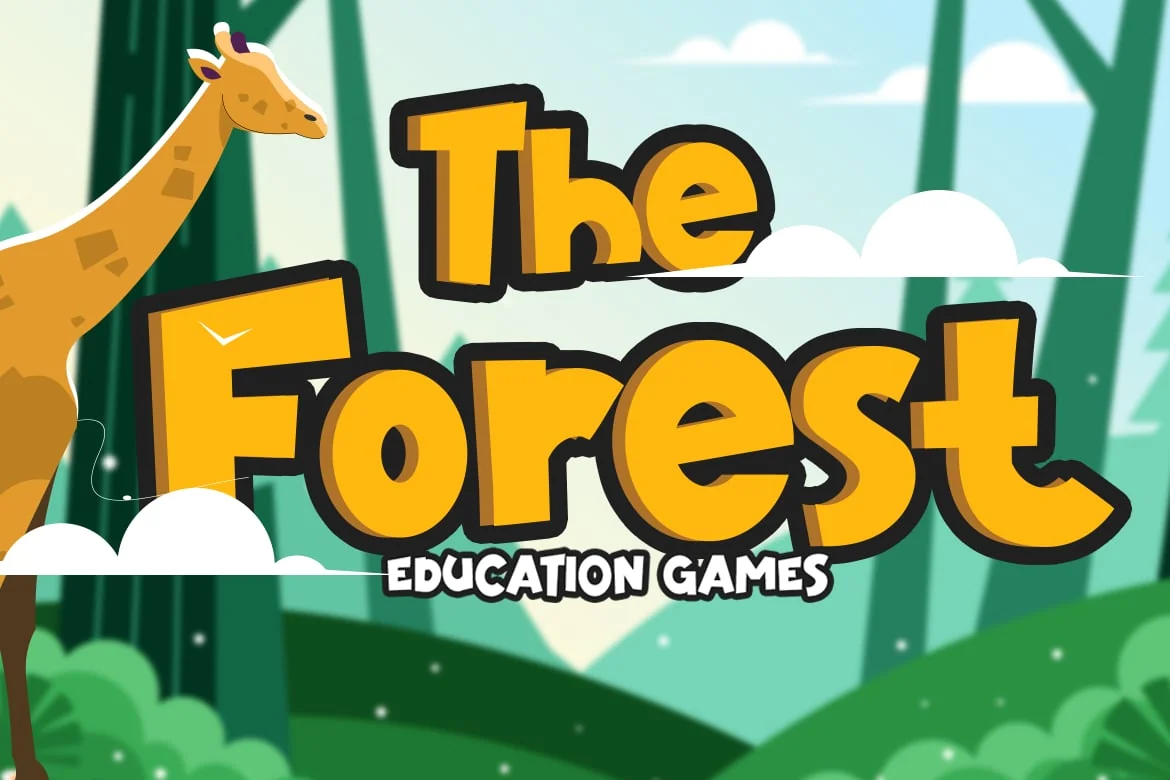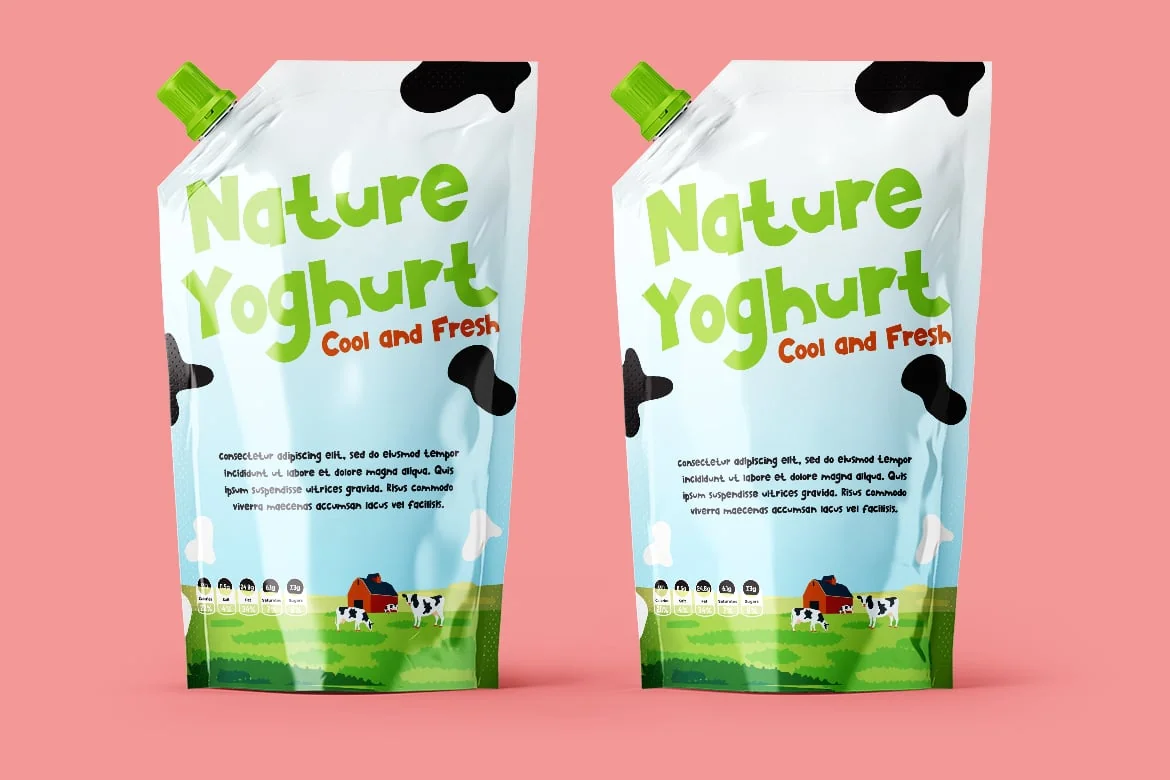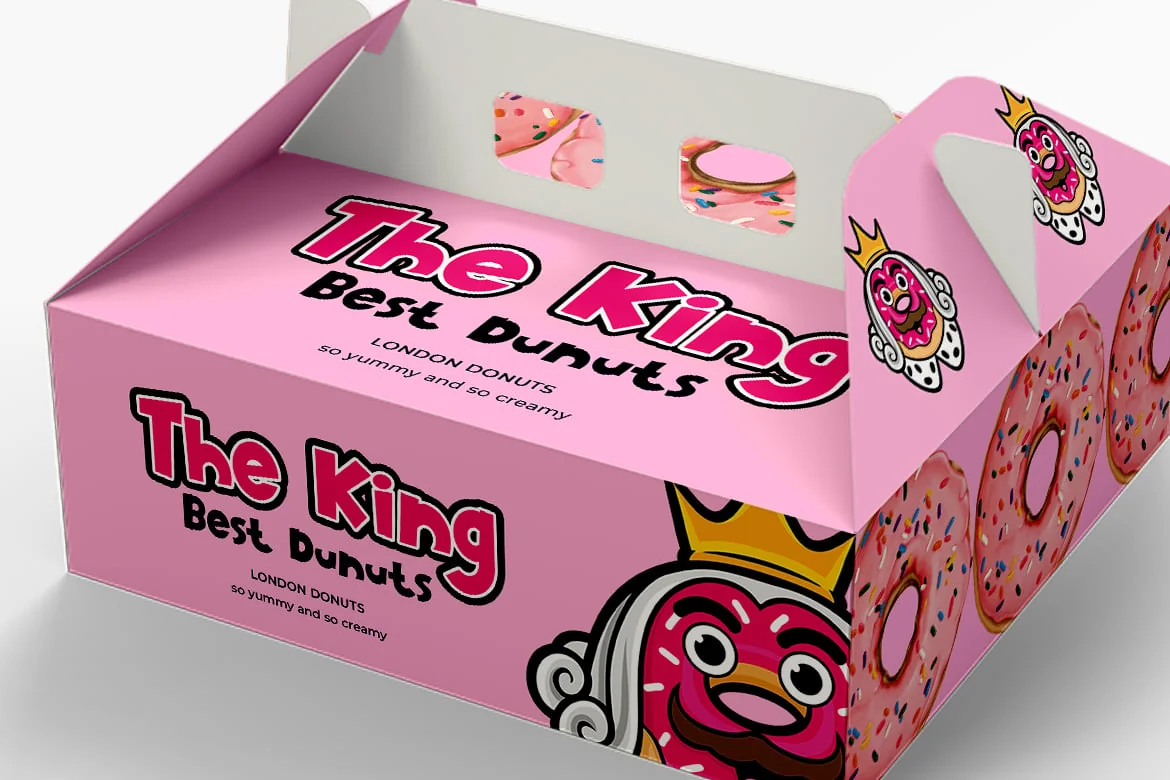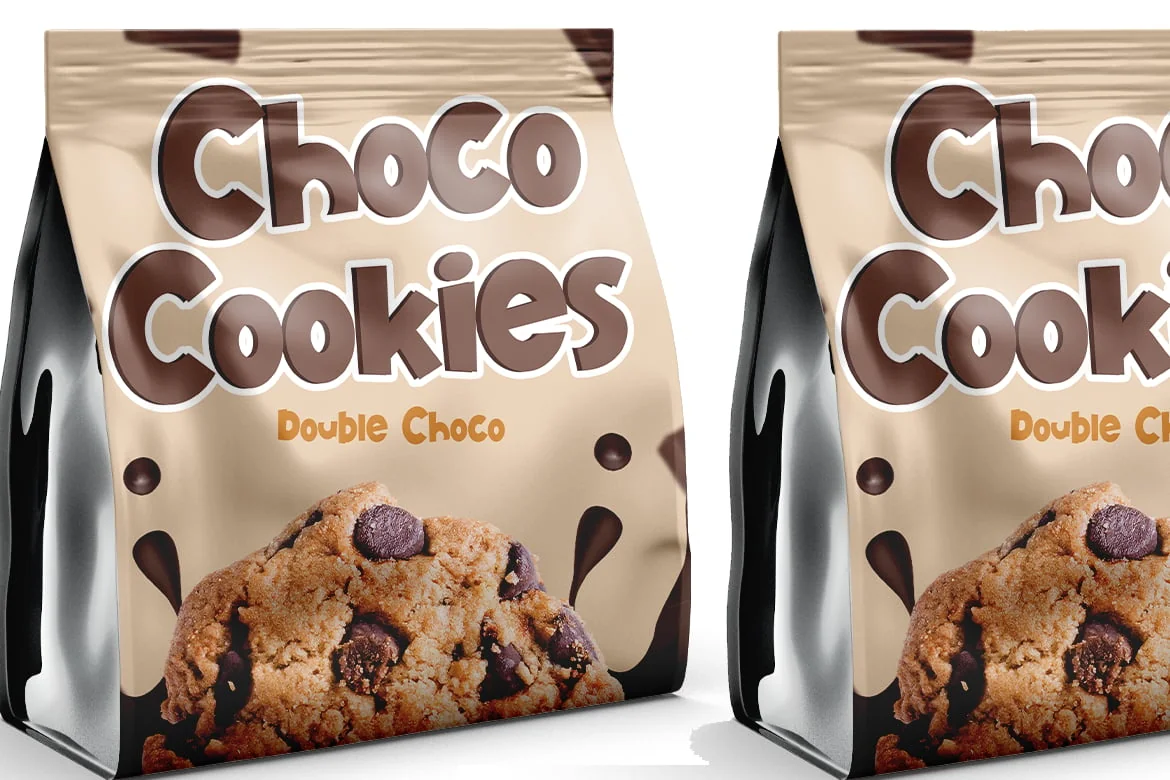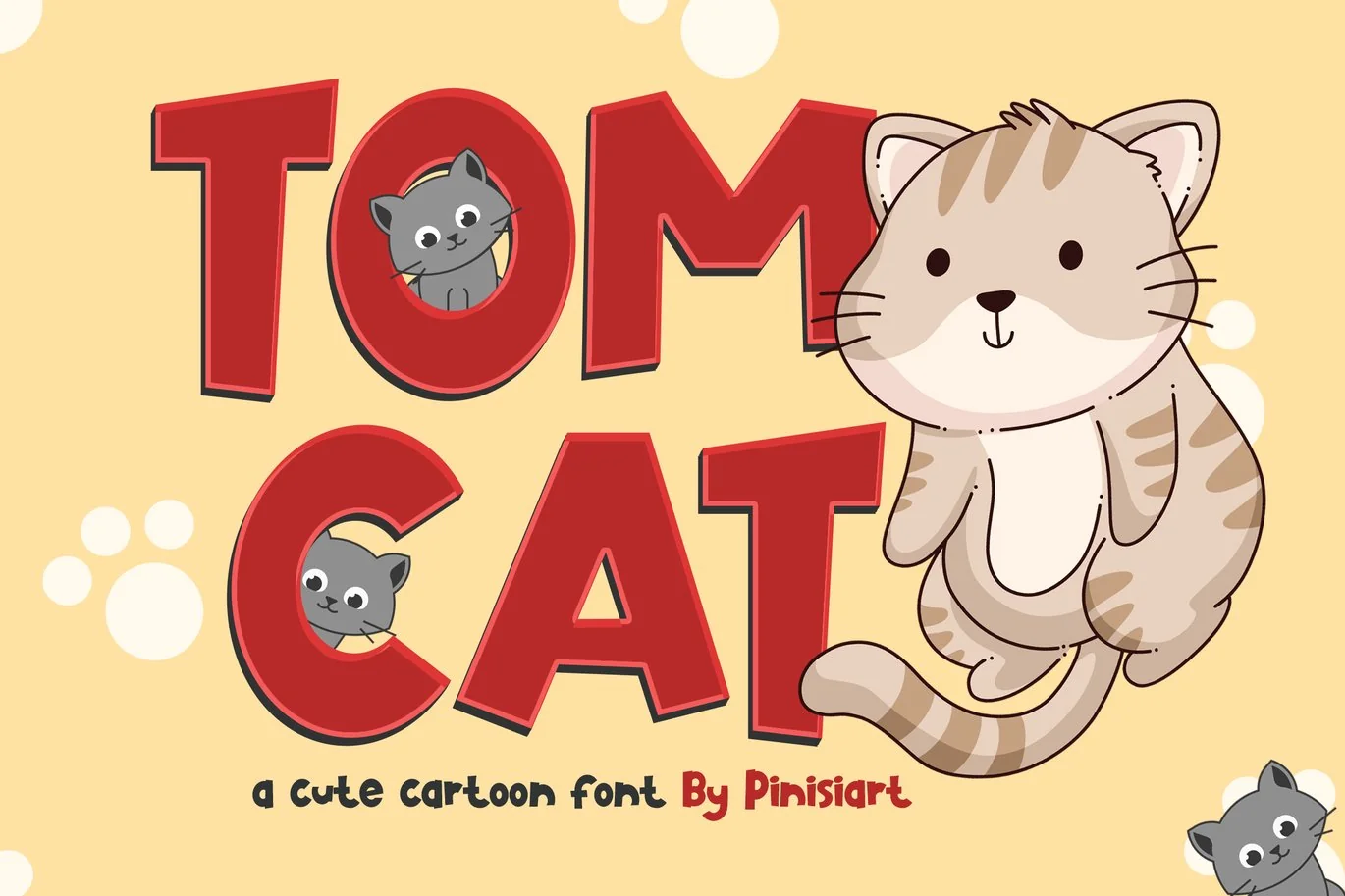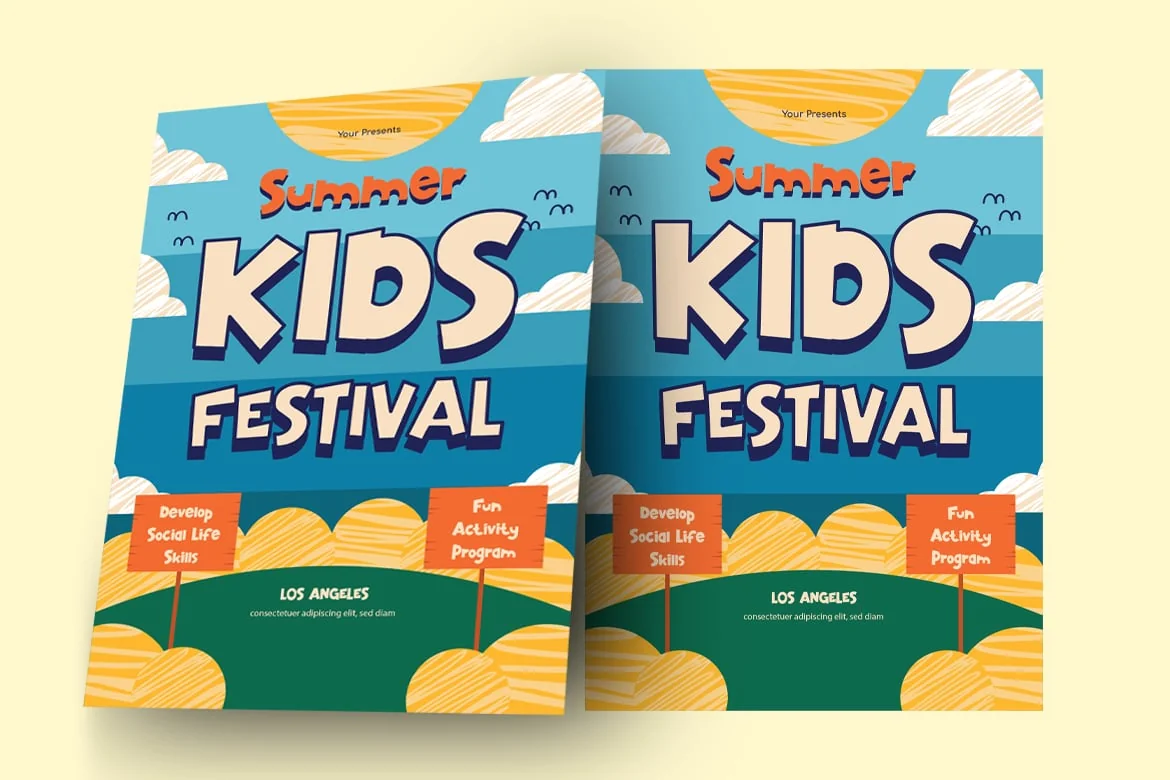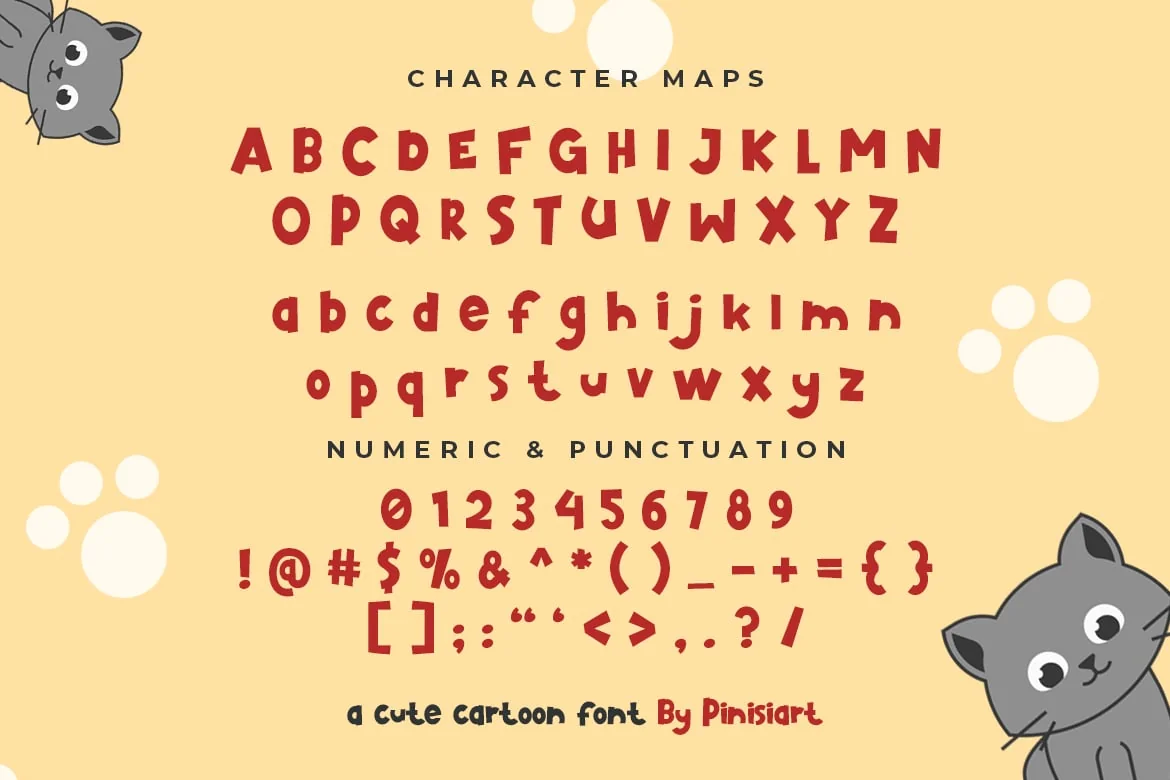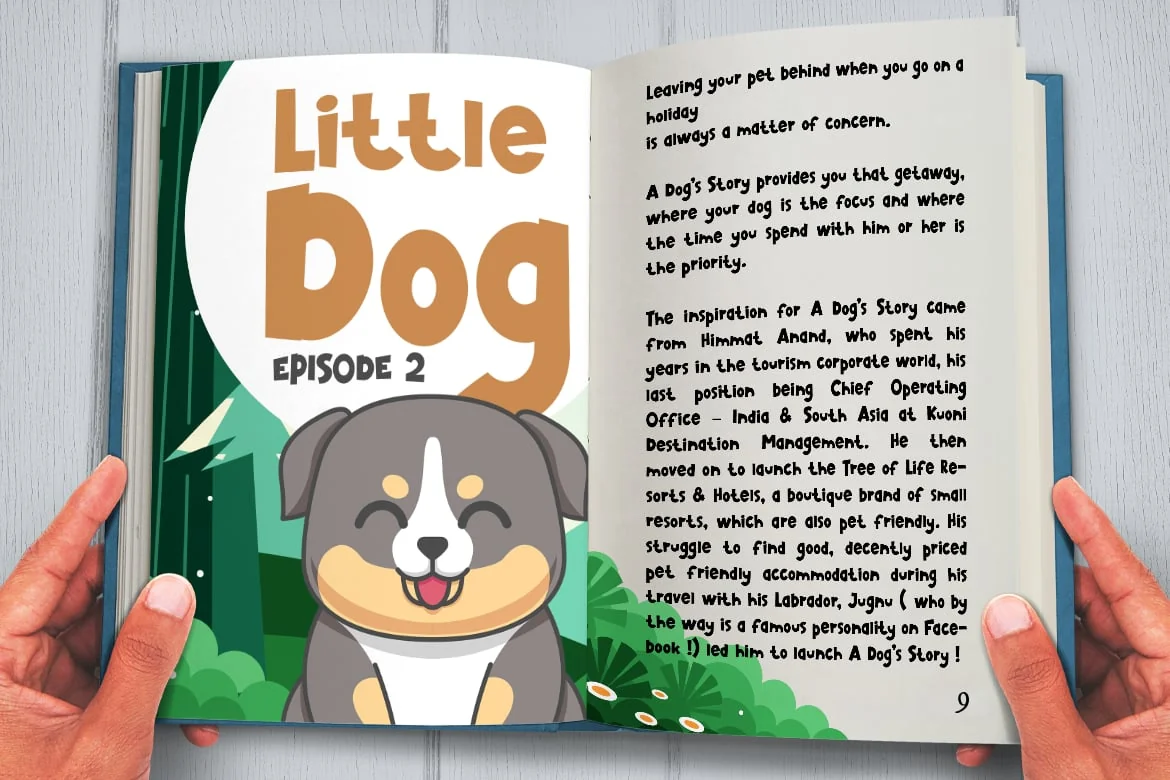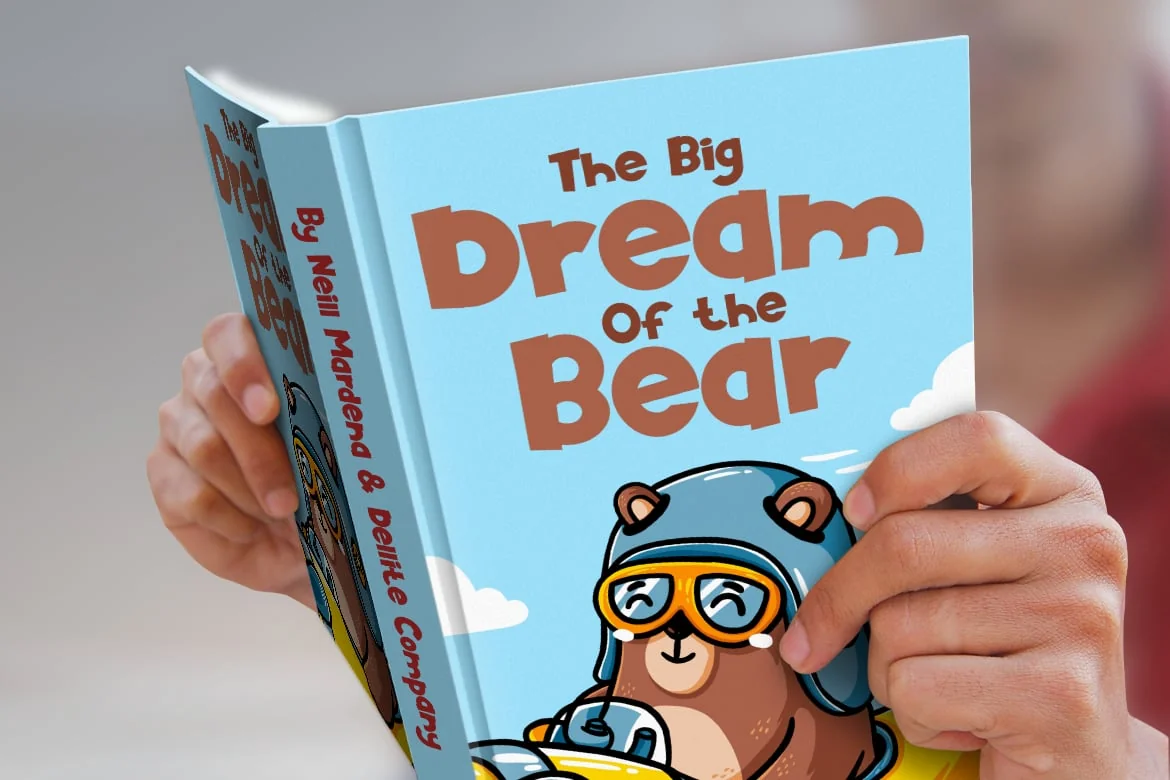
TOMCAT – cartoon font
Fun and energetic, just like a kitten that play around without hesitation.
jump, run, and all that fun activities. That’s all what TOMCAT does to all your current project.
Suit perfectly for animal themes books market, online games, stationary, school supplies font, poster, movie title, youtube covers, youtube thumbnails, social media page covers and so on…